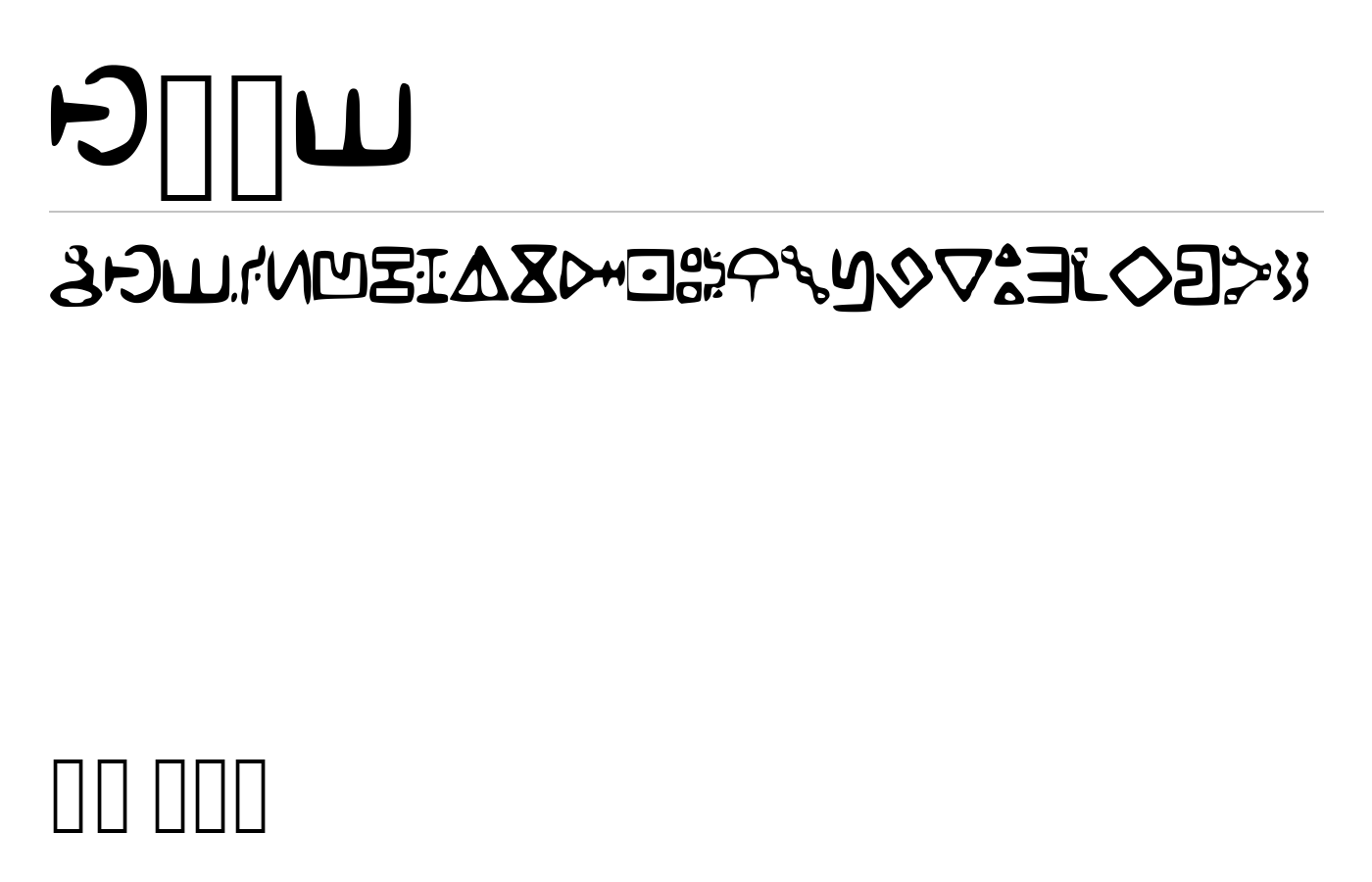
Bill_s_Cipher Font is a unique and playful symbol-based typeface that mimics an ancient, cryptic script with quirky, irregular shapes and bold, rounded strokes. It’s perfect for creating mysterious, fantasy, or supernatural themes, making it ideal for use in games, posters, or branding that aims to evoke intrigue and otherworldly vibes. This font stands out with its distinctiveness and artistic flair rather than traditional readability.
Bill_s_Cipher Font
About Bill_s_Cipher Font